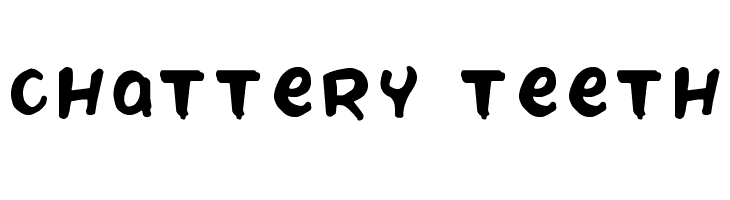
A playful, hand-drawn font with bold, rounded characters.
A playful, bold font with thick, rounded characters and a hand-drawn feel.
A bold, playful font with thick strokes and a slight italic slant.
A playful, rounded font with consistent stroke thickness and a slightly condensed style.
A bold, playful script font with a handwritten style.
A playful, handwritten-style font with rounded, slightly irregular characters.
A playful, bold font with rounded edges and a dynamic, friendly style.
A playful, rounded font with a hand-drawn, child-friendly style.